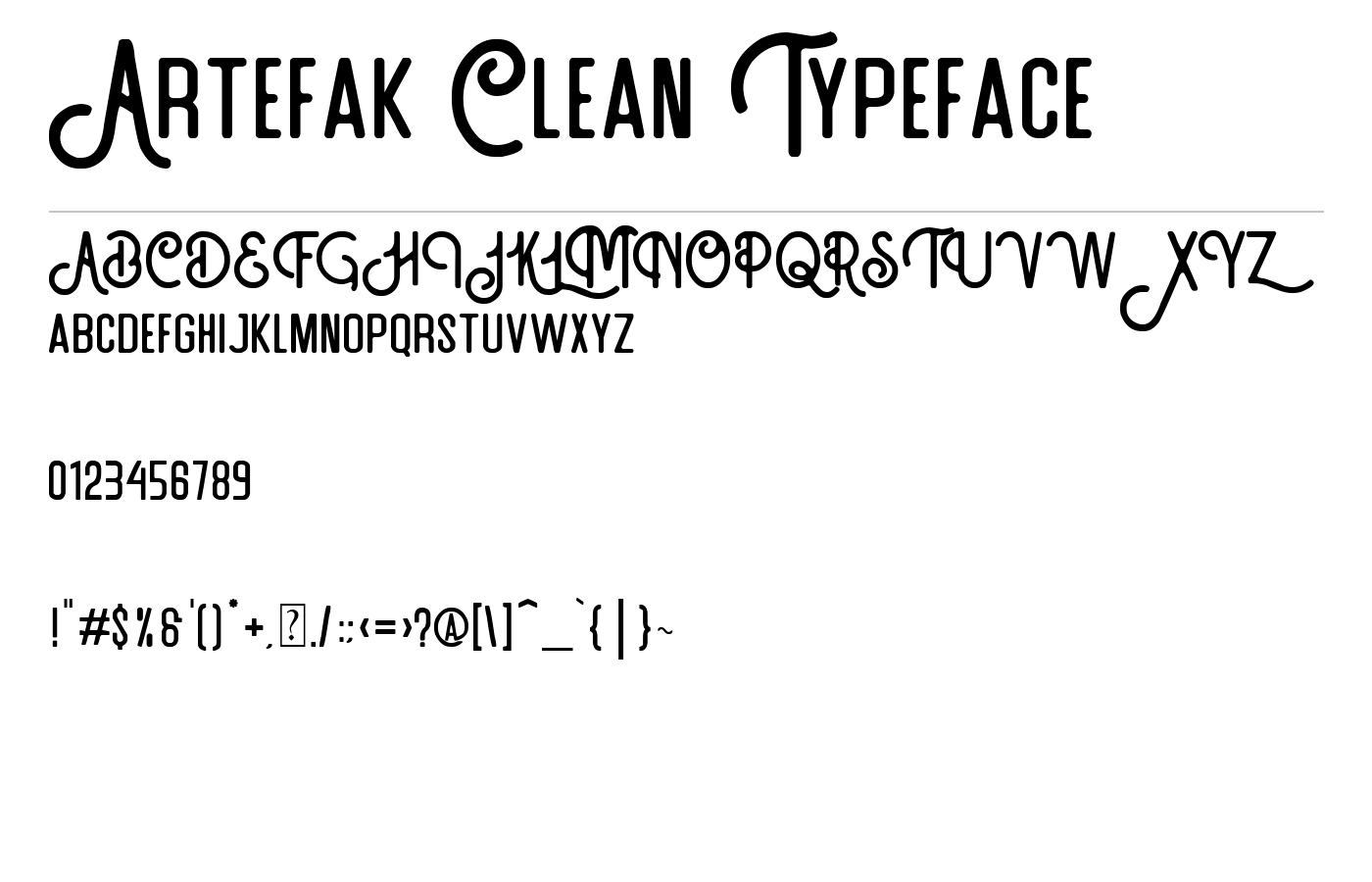
Artefak Clean Typeface is a distinctive sans serif font combining slender, clean lines with playful, decorative swashes on select uppercase letters. Its tall, narrow structure and quirky details lend a vintage yet modern vibe, making it ideal for creative headlines, logos, and eye-catching branding that seeks a unique, artistic touch. This font works well in projects needing a blend of elegance and originality without overwhelming text readability.
Artefak Clean Typeface Font
About Artefak Clean Typeface Font
| Designer | Faisal Tanjung |